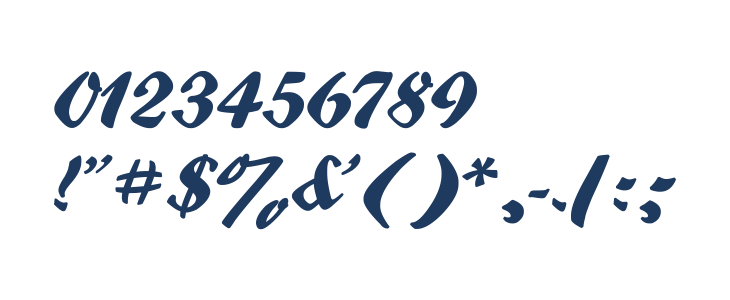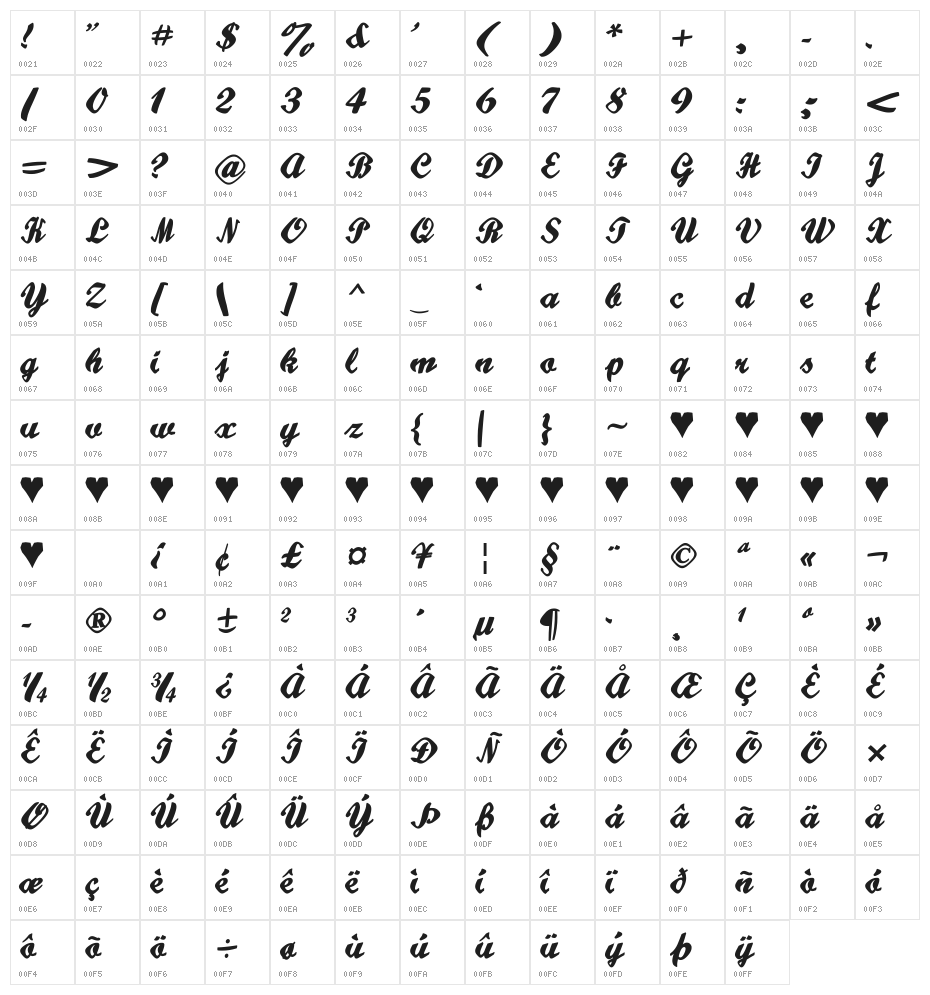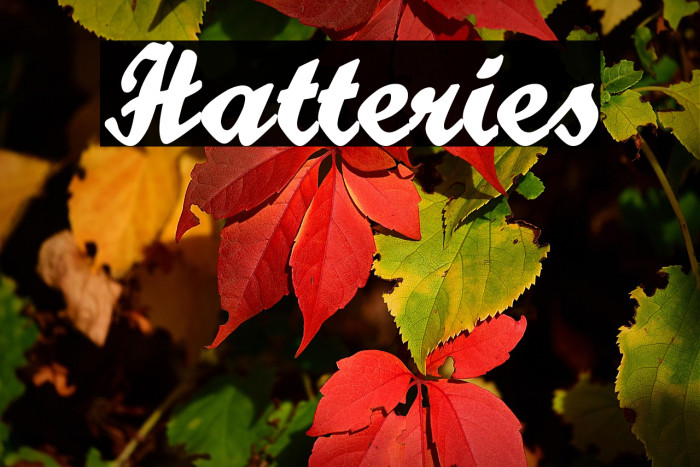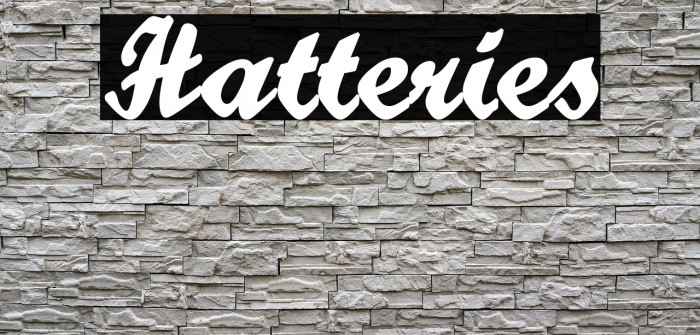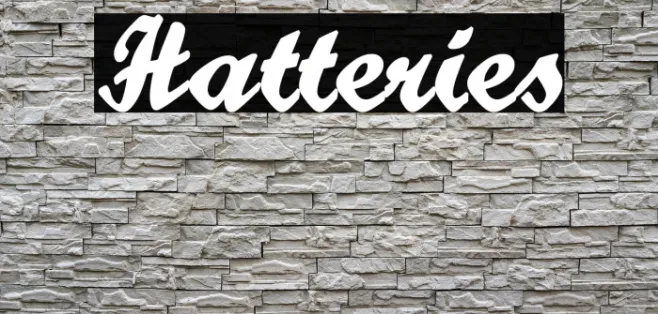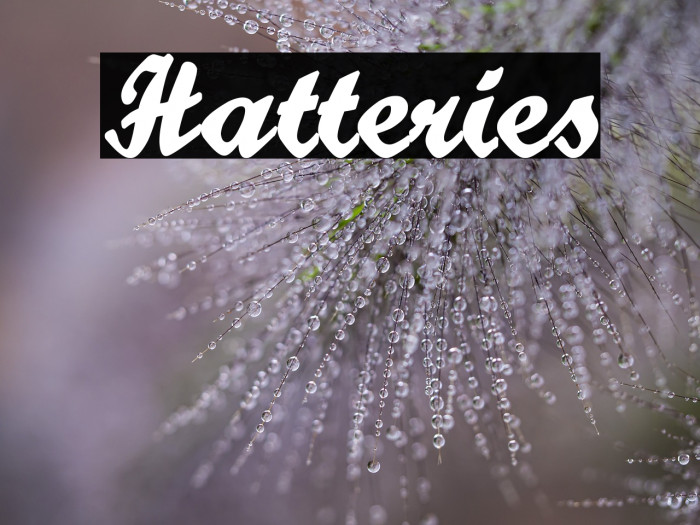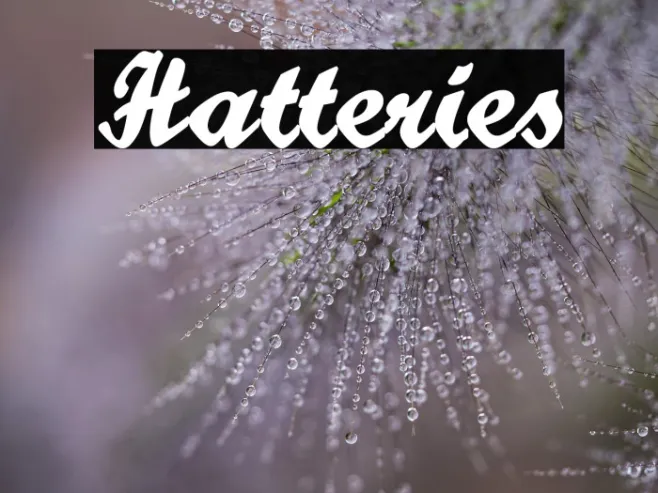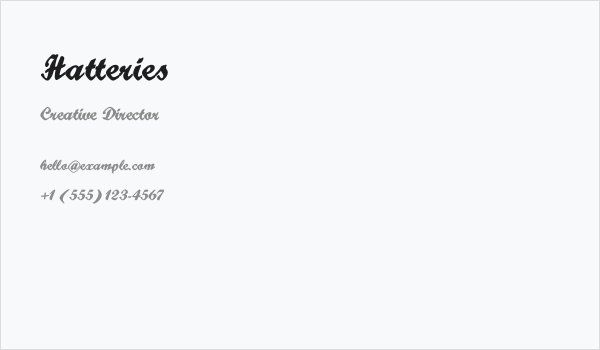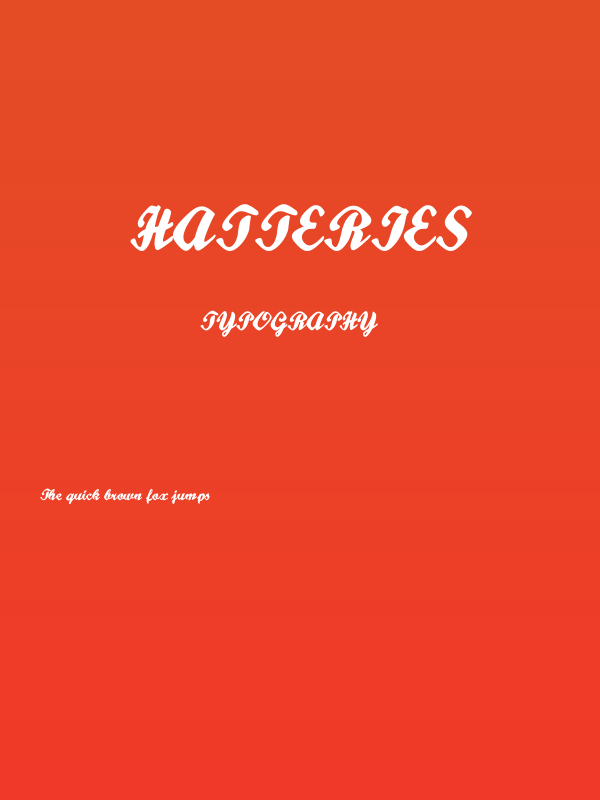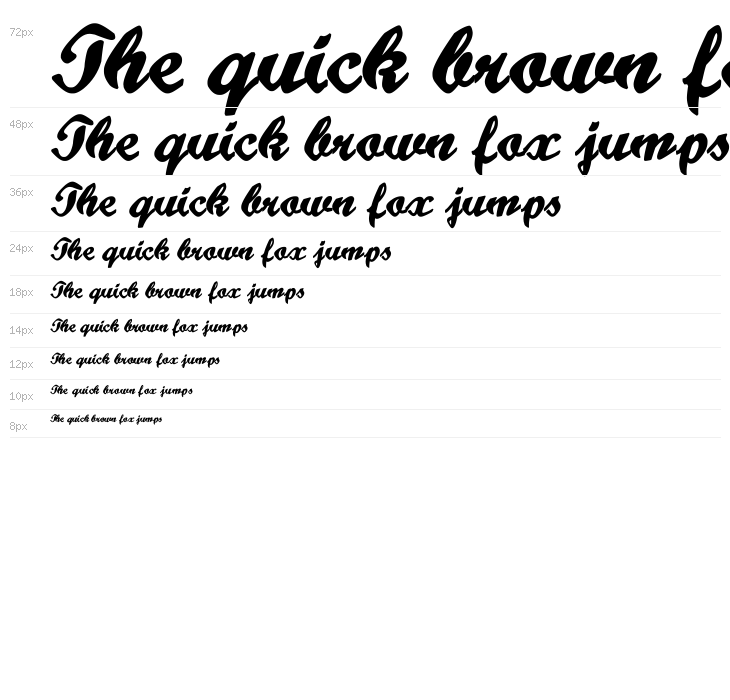
Hatteries Font
Hatteries Description
This font features a bold and expressive script style with a strong cursive influence. The characters are connected, creating a fluid and dynamic appearance. The strokes are thick and consistent, providing a sense of strength and elegance. The uppercase letters are slightly more ornate, with flourishes that add a touch of sophistication. The lowercase letters maintain a smooth flow, enhancing readability while retaining the decorative nature. Numbers and special characters are designed to match the overall style, ensuring cohesion across all elements.
Use CaseLogos, Headlines, Invitations
Proposed ProjectsIdeal for branding, invitations, greeting cards, and decorative headlines.